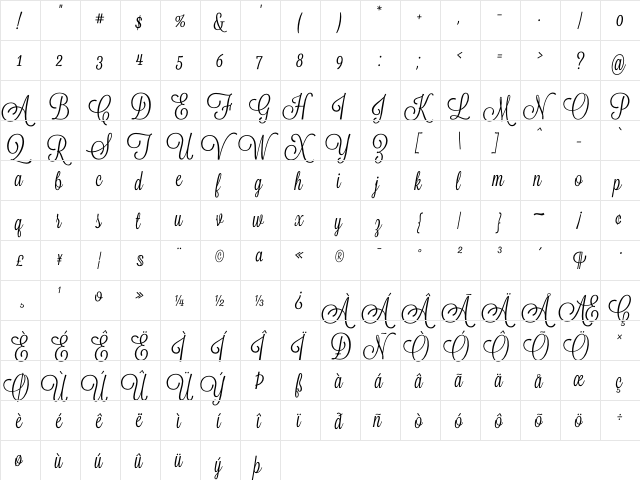
Lavanderia Regular
| Foundry | James T. Edmondson |
| Designer | James T. Edmondson |
Design Context for Lavanderia Typeface
Lavanderia is a composed and adaptable typeface that performs quietly and consistently across a wide range of design contexts.